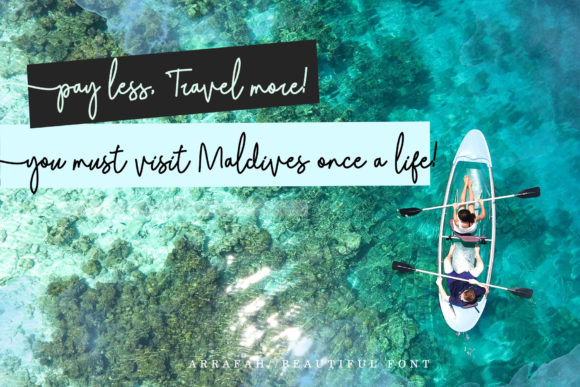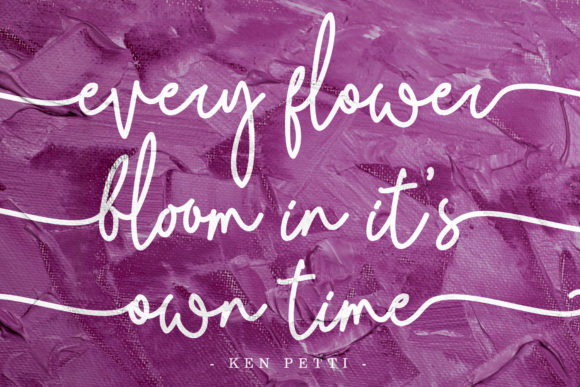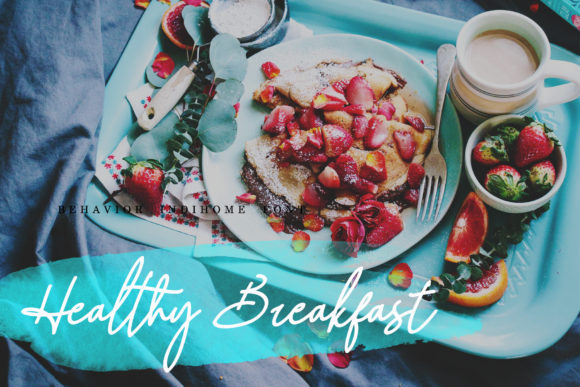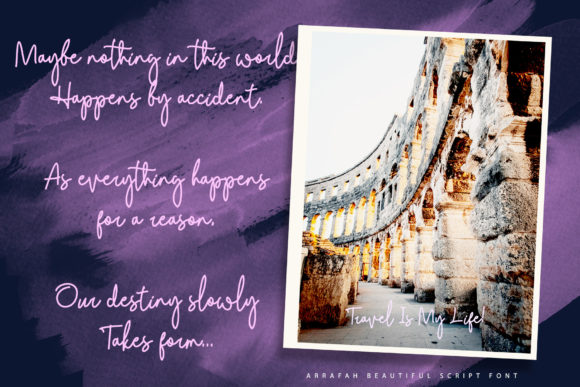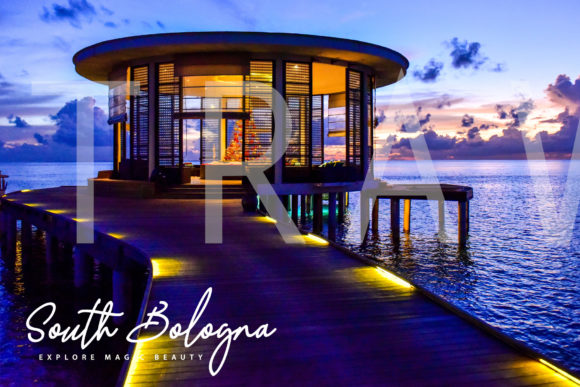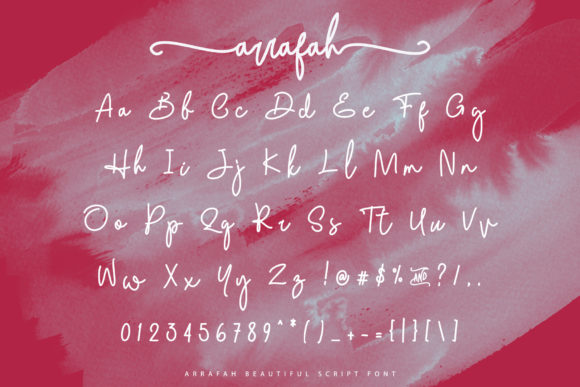
Unleashing the Elegance of Your Designs
Have you ever been stuck on a design project, searching for that perfect font to elevate your message? I know I have. It’s like trying to find the missing piece of a puzzle, until finally, it clicks. And when it does, the entire design comes alive. For me, that moment was when I discovered the Arrafah Font.
This gorgeous script font exudes a sense of luxury and sophistication, perfect for designers looking to add a touch of elegance to their work. With its natural, yet refined feel, Arrafah Font is an absolute delight to use. Whether you’re creating a wedding invitation, a branding campaign, or a beautiful piece of artwork, this font is sure to make your design shine.
As a valuable addition to any designer’s toolkit, Arrafah Font offers unparalleled versatility and style. Its effortless elegance makes it a must-have for anyone looking to take their designs to the next level.
Arrafah Font Key Features
- Font Family: Arrafah is a unique, handwritten script font with a beautiful, elegant touch.
- Size: The font includes a wide range of characters, including uppercase and lowercase letters, numbers, and punctuation, making it suitable for various design projects.
- Unique Characteristics: The Arrafah font features beautiful, flowing lines, and subtle imperfections that give it a hand-drawn feel.
- Language Support: The font supports a wide range of languages, including English, Arabic, and many others, making it a great choice for multilingual designs.
As a designer, I was excited to dive into the Arrafah Font and see if it lived up to its promise. Here’s my honest review.
- The Arrafah Font has a beautiful, elegant feel to it. The curves and lines flow well together, making it perfect for titles and headings.
- The font is highly legible, even at small sizes, which is a must for any font.
- The Arrafah Font comes in a range of weights and styles, making it versatile and suitable for various design projects.
- The Arrafah Font is not ideal for body text. The letter spacing can become too wide at smaller font sizes, making it difficult to read.
- The font lacks a true italic or oblique style, which can limit its use in certain design scenarios.
- The Arrafah Font may not be the best choice for digital displays, as it can appear pixelated at smaller sizes.
The Arrafah Font is a beautiful, elegant font that shines in titles and headings. However, its limitations make it less suitable for body text and digital displays. With some tweaks and refinements, it has the potential to become a top-notch font for designers. As it stands, it’s a solid choice for specific design projects, but not a go-to font for everyday use.
Getting the Most Out of Arrafah Font
To get the most out of Arrafah font, use it for:
- Typography-based designs, such as logos and branding materials.
- Creating a unique and modern look for your website or social media graphics.
- Adding a touch of elegance to your presentations and documents.
Common use cases for Arrafah font include:
- Headings and titles.
- Body text for a modern and sleek look.
- Logos and branding materials.
Alternatives to Arrafah Font
Pacifico is a beautiful, elegant script font that is perfect for creating a sophisticated and refined look. It is ideal for use in wedding invitations, luxury branding, and high-end packaging. Pacifico is more cursive than Arrafah Font and has a more refined feel, making it suitable for formal and elegant designs.
Comparison to Arrafah Font: While both fonts are script fonts, Pacifico has a more refined and elegant feel, whereas Arrafah Font has a more casual and modern feel.
Great Vibes is a modern script font that is perfect for creating a fun and energetic look. It is ideal for use in advertising, social media, and entertainment branding. Great Vibes is more dynamic and playful than Arrafah Font, making it suitable for designs that require a lively and energetic feel.